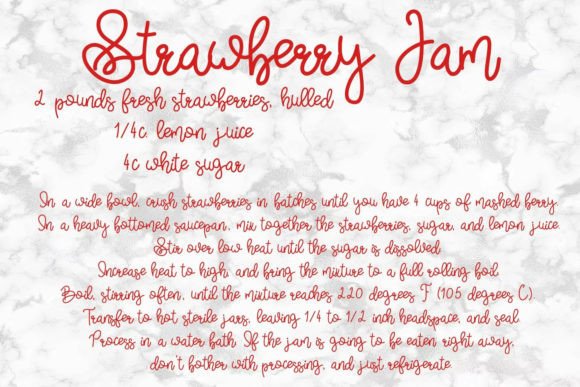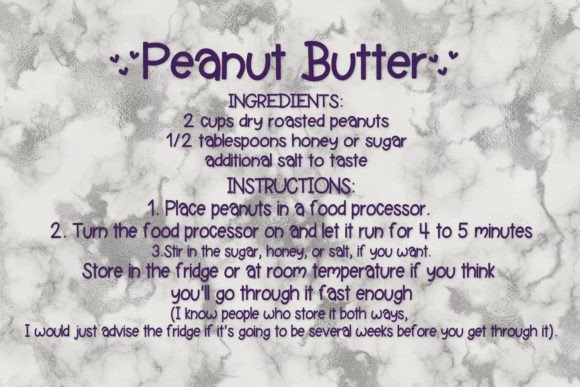
About Peanut Butter and Jealous Duo Font
Introducing Peanut Butter And Jealous, a delightful hand-written font duo that brings a playful and versatile combination to your projects! This font duo features a bouncy script font paired with a thick print font, offering a harmonious blend of styles. Peanut Butter And Jealous is designed to look great on all types of projects and takes the guesswork out of finding the perfect font pair.
The bouncy script font in this duo adds a playful and dynamic touch to your text, making it ideal for a variety of creative applications. Whether you’re working on branding materials, invitations, posters, or any design project that requires a lively and fun font, Peanut Butter And Jealous has you covered.
The thick print font complements the script font, creating a well-balanced and cohesive duo. This combination ensures that your text stands out and remains easily readable across different design contexts.
Consider using Peanut Butter And Jealous to add charm to your branding materials, bring a playful vibe to your invitations, or create eye-catching posters with a font pair that works seamlessly together. The duo’s versatility makes it a convenient choice for various design projects.
In essence, Peanut Butter And Jealous is more than just a font duo; it’s a creative tool that simplifies the process of finding the right pair. Let it be the go-to choice for your projects, adding a delightful and well-matched combination of styles to elevate your designs.